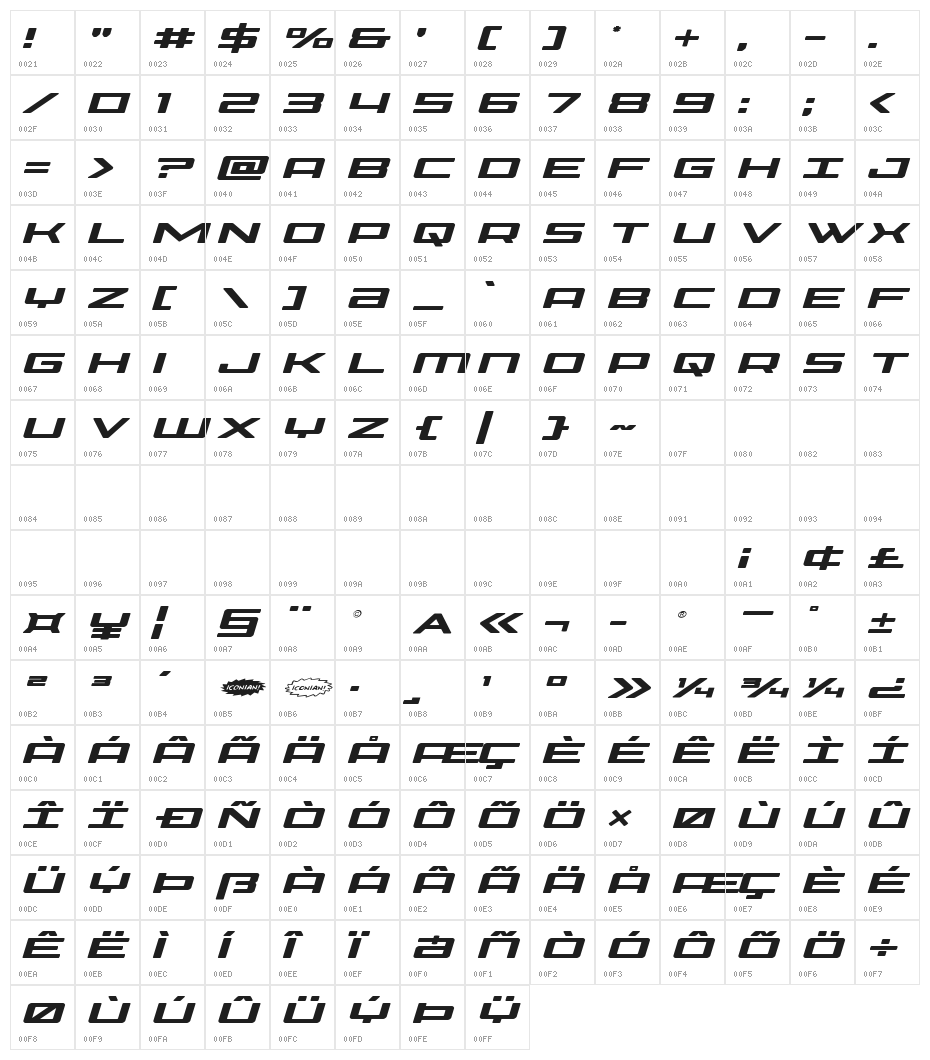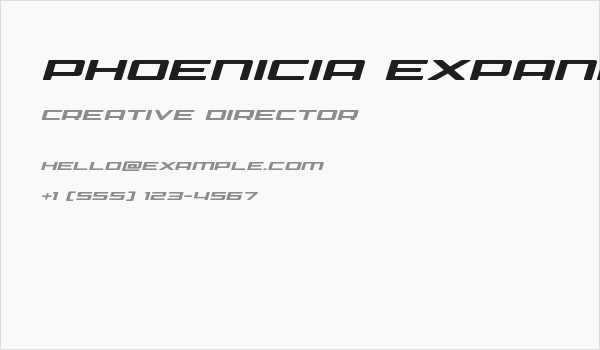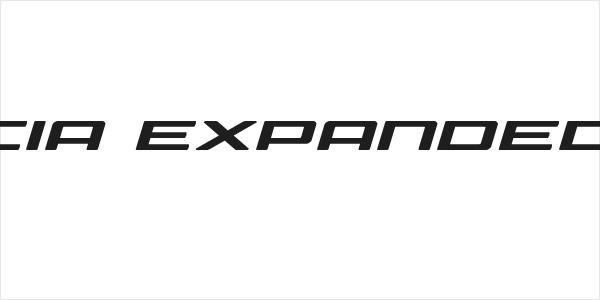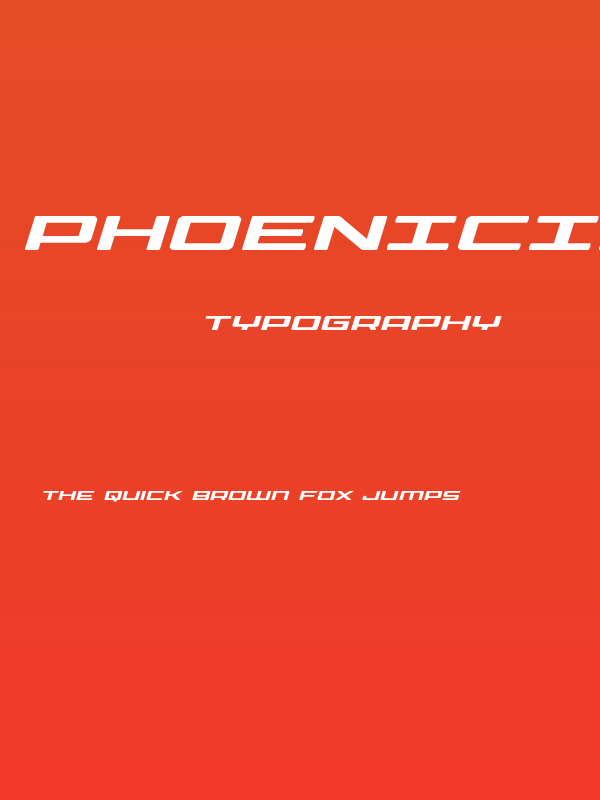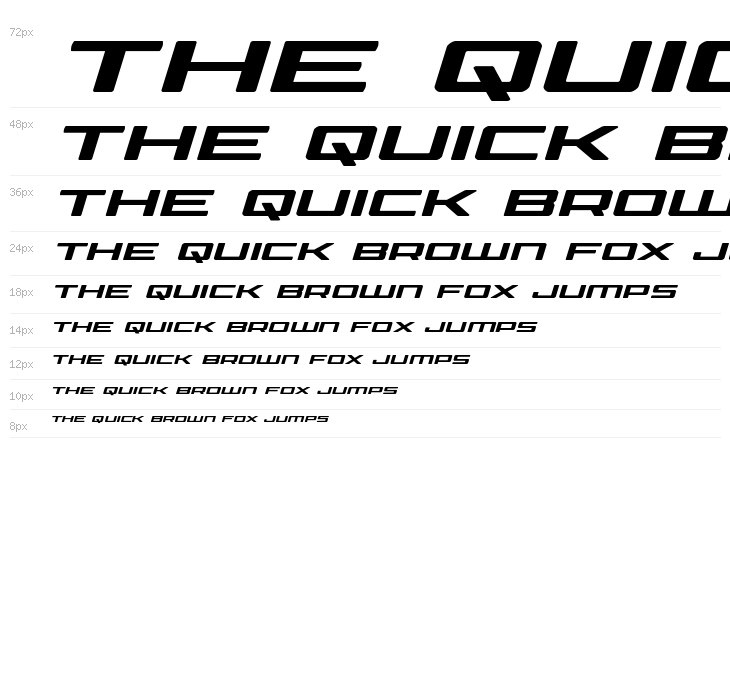
Phoenicia Expanded Italic Font
Phoenicia Expanded Italic Description
This font features an expanded and italicized style, characterized by its bold and futuristic appearance. The letters are slightly slanted, giving a sense of motion and speed. The strokes are consistent in width, providing a uniform look across all characters. The expanded width of the characters allows for greater readability, making it suitable for various design applications. The font includes a complete set of uppercase and lowercase letters, numbers, and a variety of special characters, ensuring versatility in use.
| Proposed Projects | Ideal for technology branding, sci-fi themed projects, sports team logos, and dynamic advertising campaigns. |